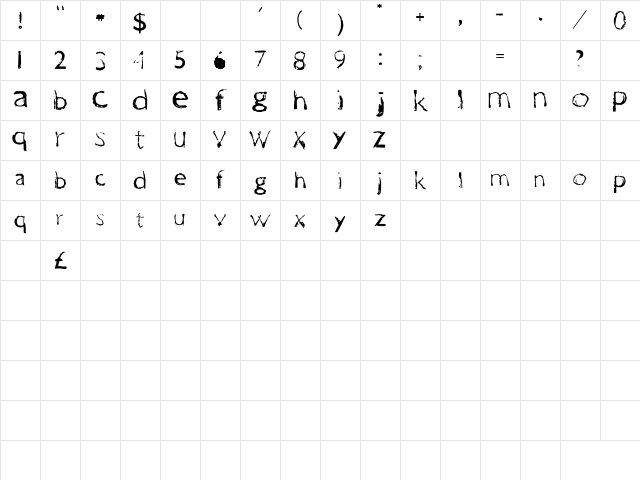
One Way Regular
Design Context for One Way
One Way is a composed and adaptable typeface that performs quietly and consistently across a wide range of design contexts.
Pro Tip: Use One Way in both headline and body roles to test its range before committing to a single application.